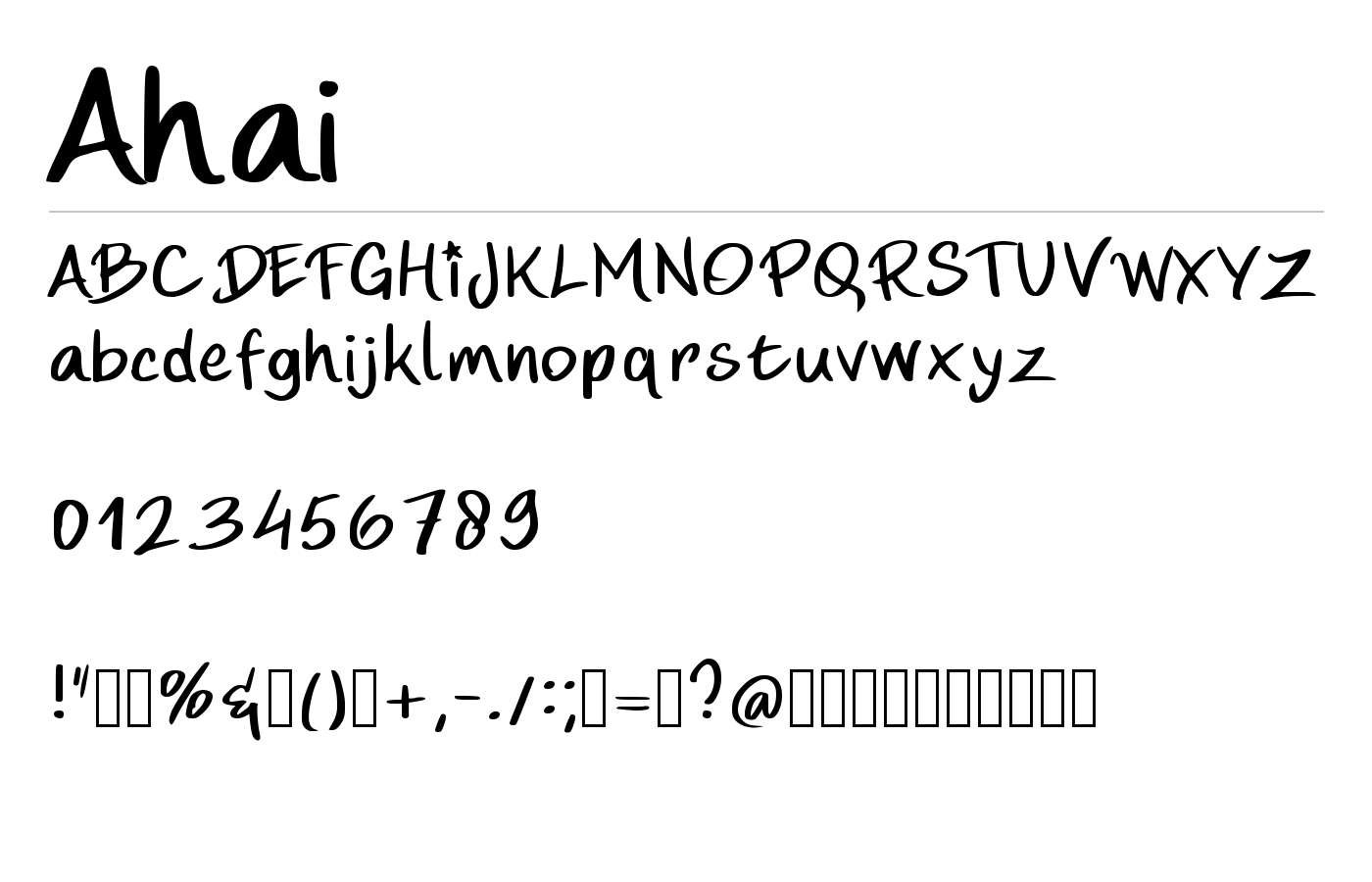
Ahai is a playful and casual handwritten sans-serif font with a friendly and informal style. Its uneven strokes and lively letterforms create a warm, approachable feel, making it ideal for creative projects, personal branding, and lighthearted designs that want to convey personality and fun. This font works well for headlines, invitations, and social media graphics, where a relaxed and engaging look is desired.
Ahai Font
About Ahai Font
| Font family | Ahai Font |
| Designer | Daniel Herdianto |